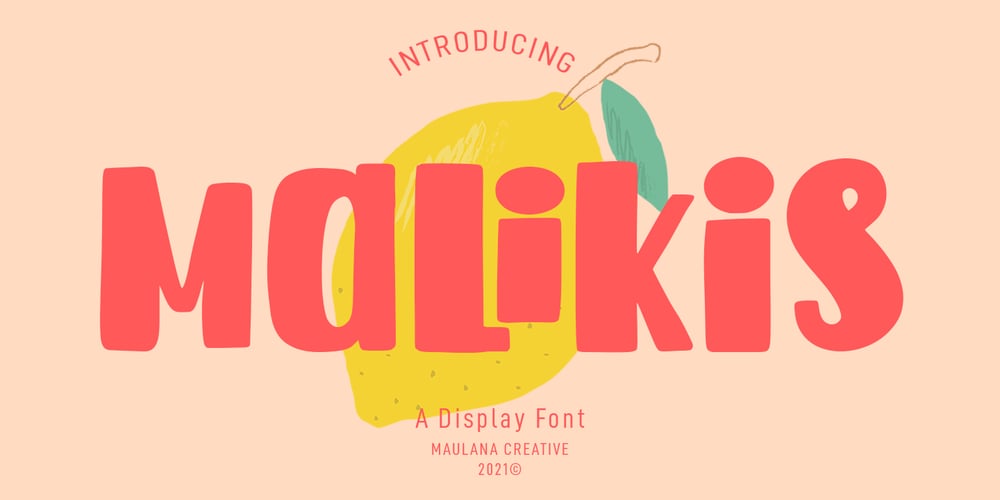
Malikis Font Family was designed by Gilang Maulana and published by Maulana Creative. Malikis contains 1 styles and family package options. Malikis is a decorative display font. With bold stroke, upright and fun character with a bit of ligatures and lowercase alternatives. To give you an extra creative work. Malikis font support multilingual more than 100+ language. This font is good for logo design, Social media, Movie Titles, Books Titles, a short text even a long text letter and good for your secondary text font with sans or serif. Make a stunning work with Malikis font. Cheers, MaulanaCreative